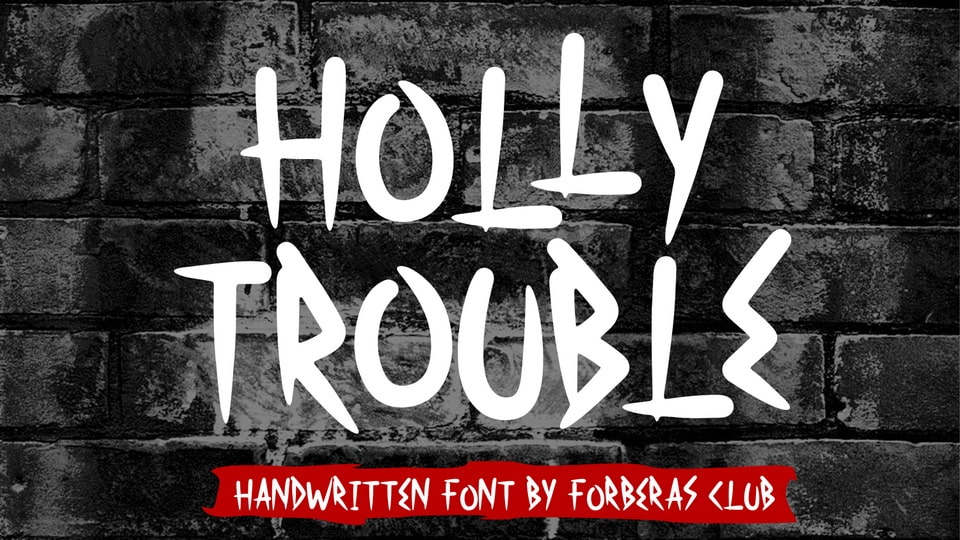
Download Holy Trouble font, a spooky display typeface. Add it to your crafts, horror movie posters, t-shirts and anything else that requires a spectacular look.